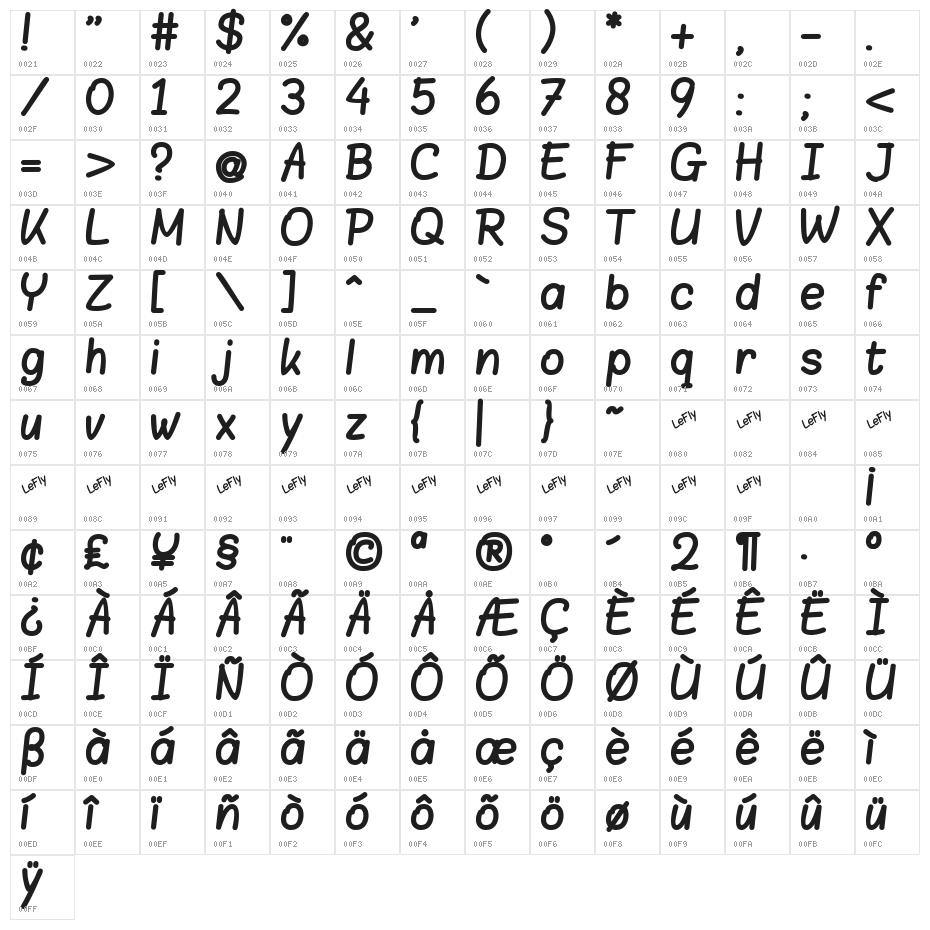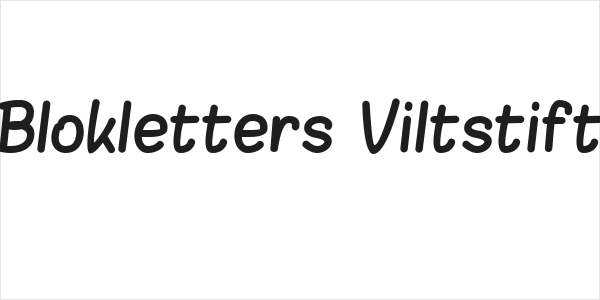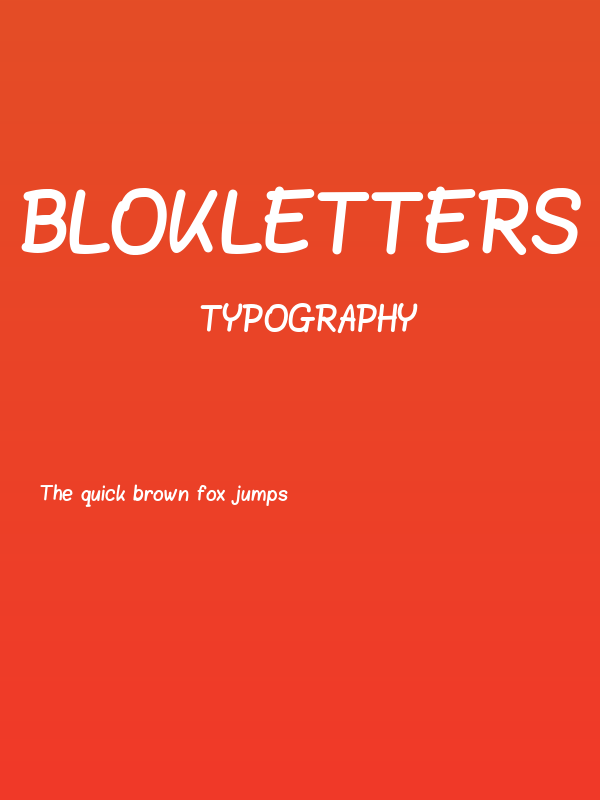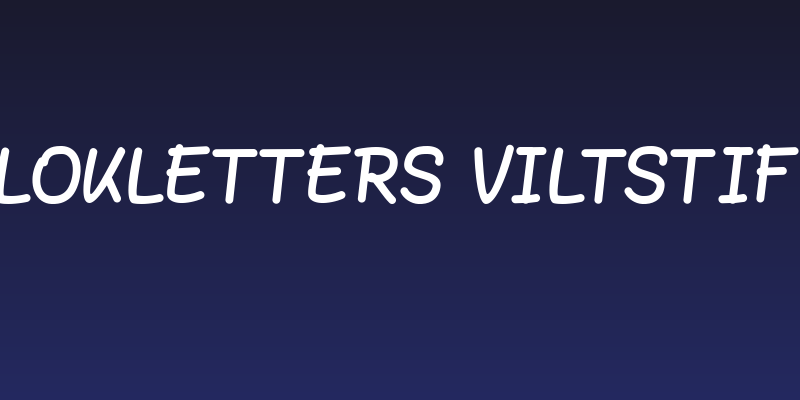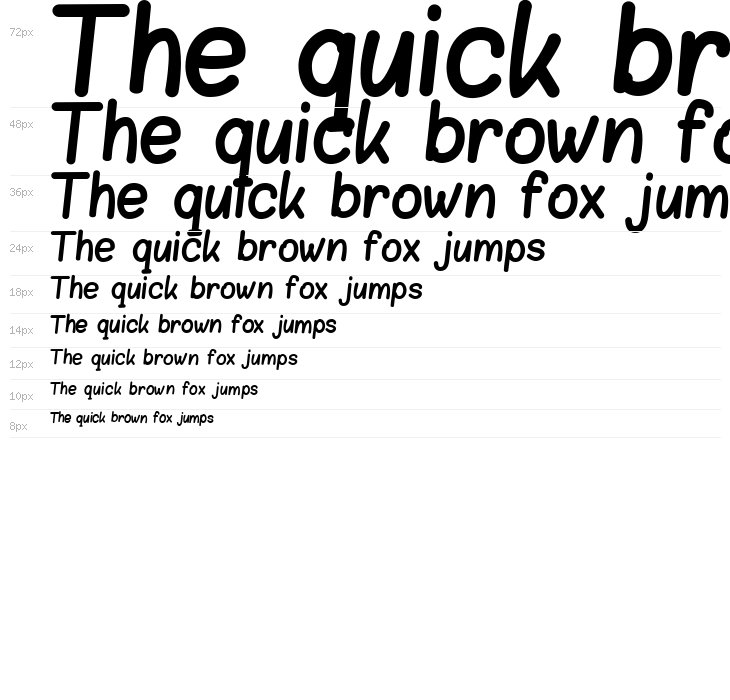
Blokletters Viltstift Font
Blokletters Viltstift Description
This font features a playful and casual handwritten style, reminiscent of writing with a felt-tip pen. The characters are rounded and slightly slanted, giving them a friendly and approachable appearance. The uppercase and lowercase letters maintain a consistent style, with smooth curves and a uniform stroke width. The numbers and special characters follow the same design principles, ensuring a cohesive look across all elements. This font is ideal for projects that require a personal touch or a relaxed vibe.
| Use Case | Headlines, Informal text, Branding |
| Proposed Projects | Ideal for greeting cards, children's books, casual branding, and social media graphics. |